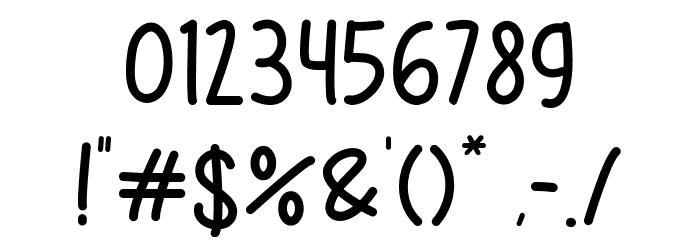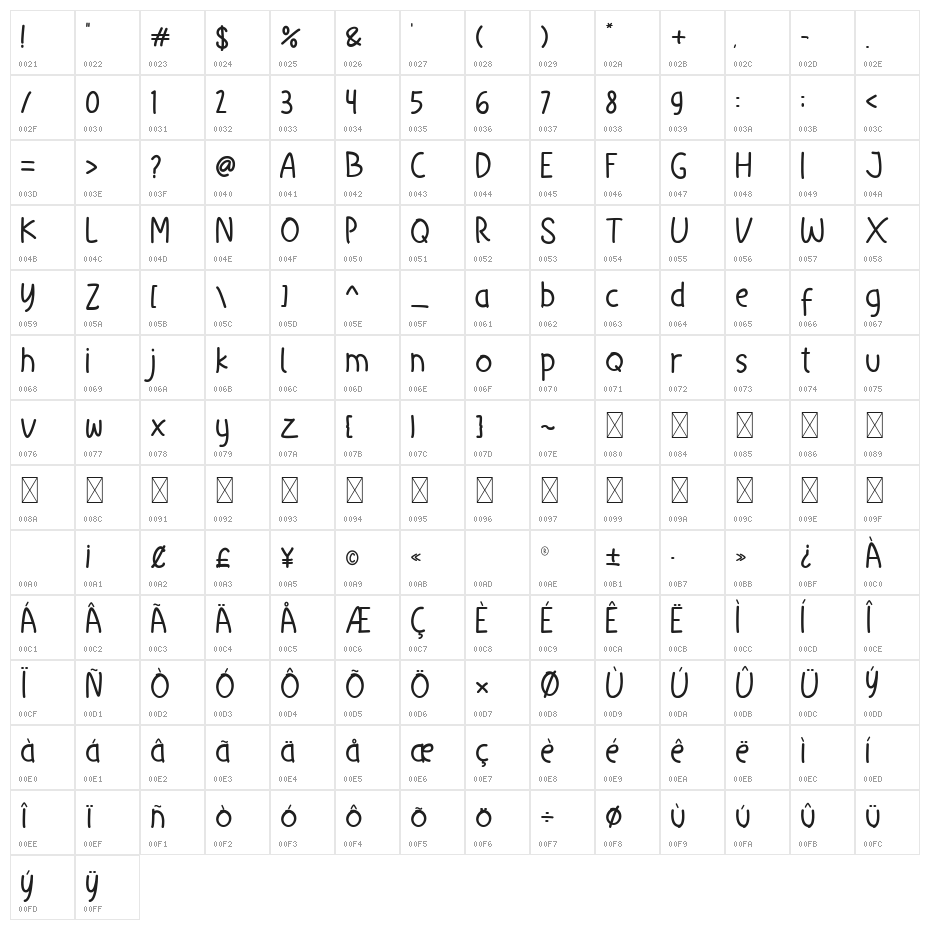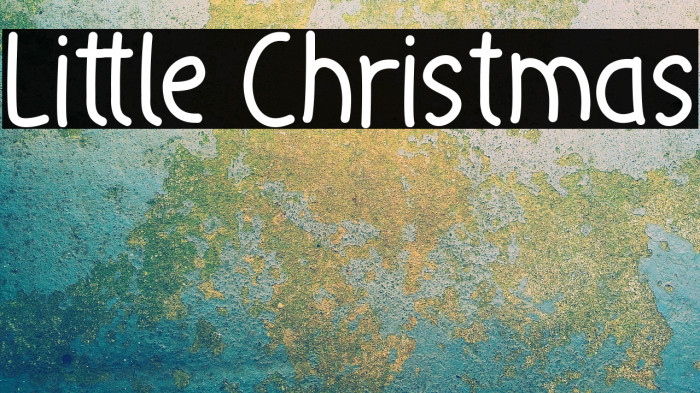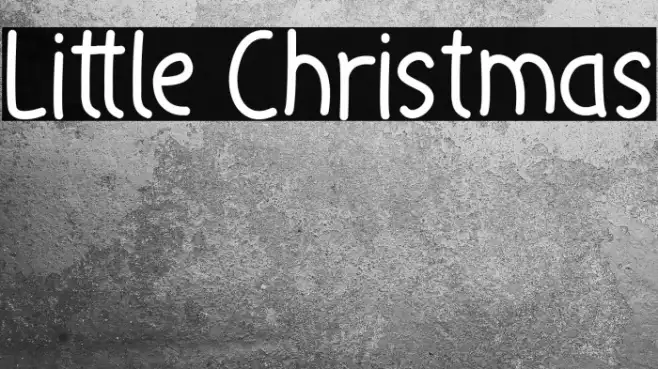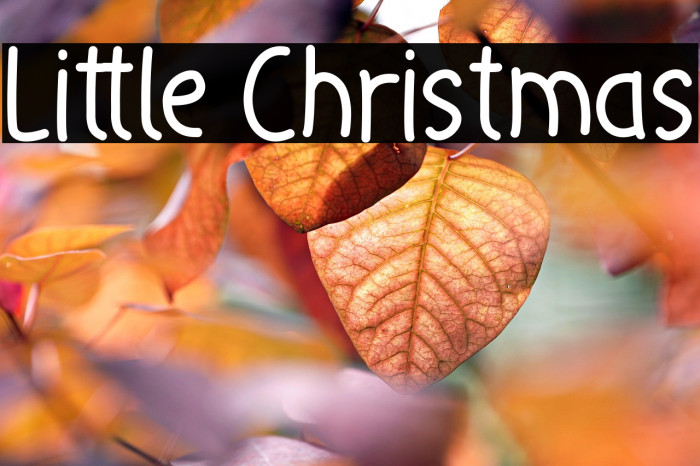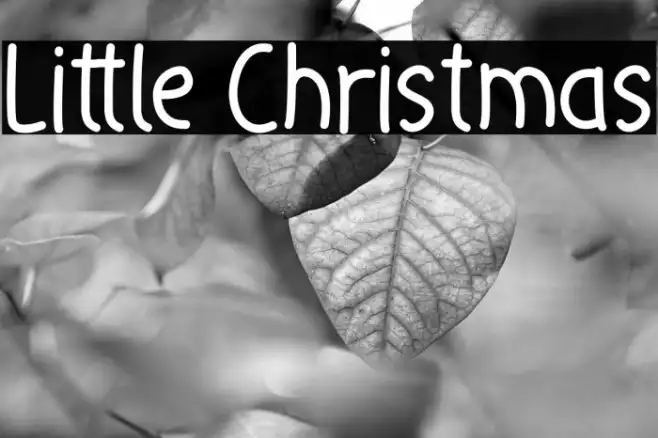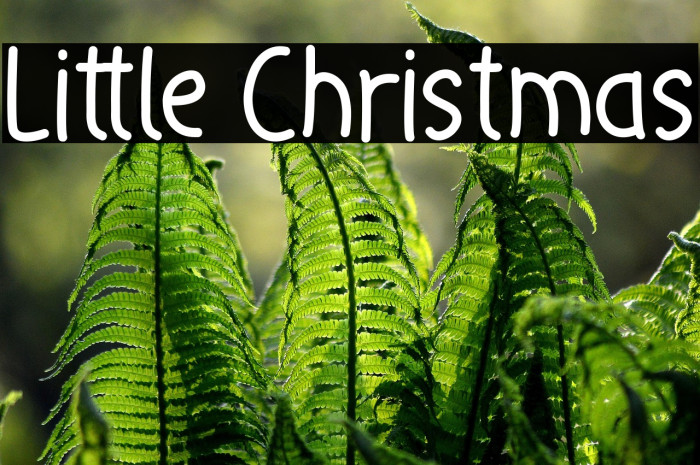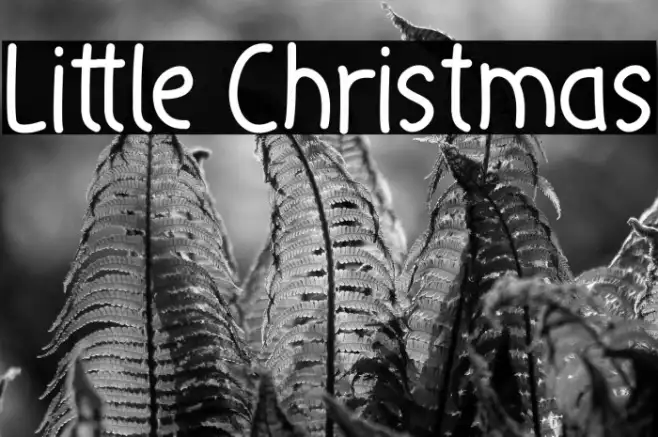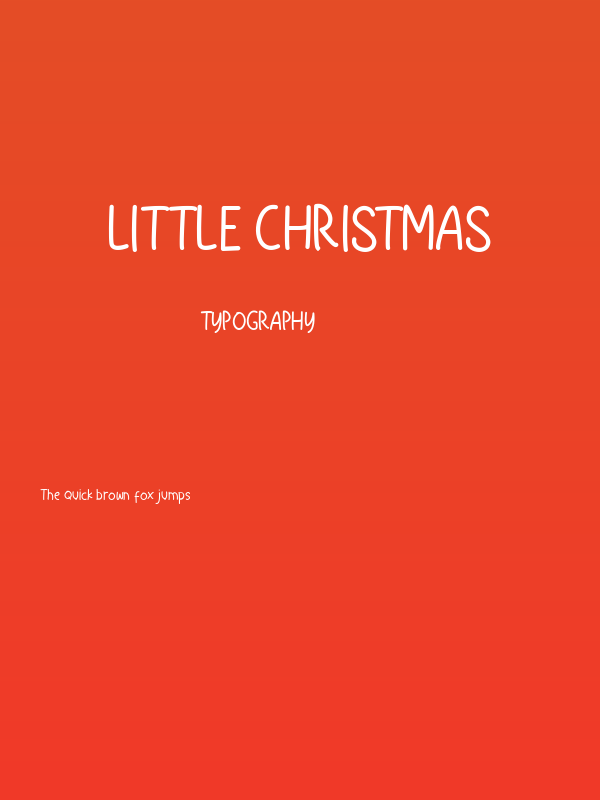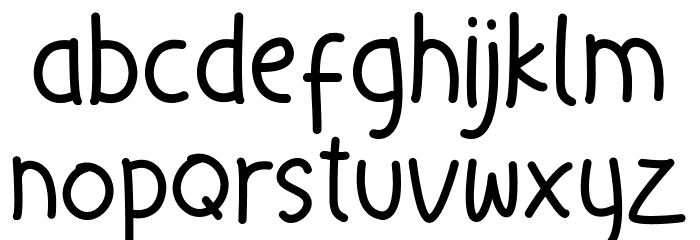
Little Christmas Font
Little Christmas Description
This playful and whimsical font features rounded, smooth edges and a hand-drawn aesthetic that evokes a sense of fun and creativity. The characters are slightly irregular, adding to the charm and informal style of the typeface. It includes both uppercase and lowercase letters, numerals, and a variety of special characters. The font maintains a consistent stroke width throughout, giving it a uniform appearance despite its casual design. Its friendly and approachable look makes it suitable for projects that aim to convey warmth and friendliness.
| Proposed Projects | Ideal for children's books, greeting cards, playful branding, and casual invitations. |